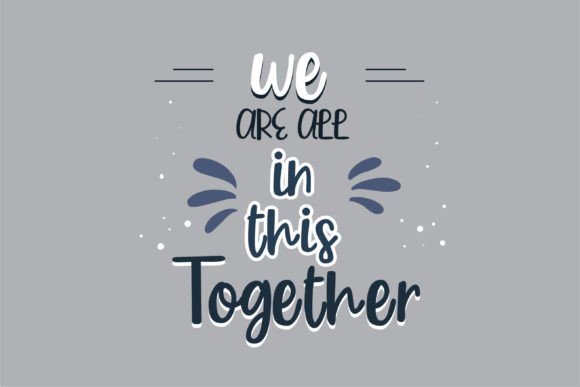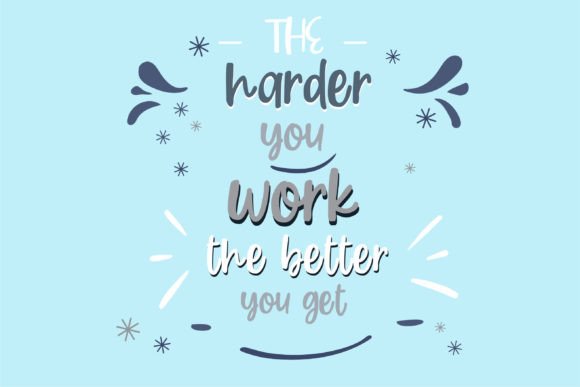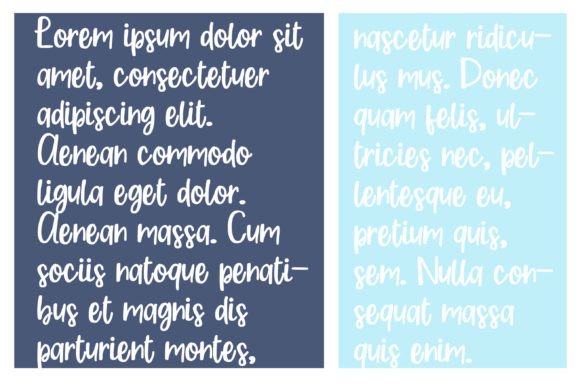
Introduction to Populice Font
Do you remember that moment when a perfect font choice can elevate your entire creative project? For designers, finding the right font can be a game-changer. Whether you’re working on a storybook, designing clothes, or crafting a brand identity, the right font can make all the difference. In this article, we’ll be exploring the wonderful world of Populice Font, a fun and casual cursive script that’s sure to add a touch of personality to your work.
What sets Populice Font apart is its versatility. With a free download available, you can easily integrate it into your design resource library. Plus, its transparent background makes it easy to use on a variety of backgrounds, ensuring your design stands out. Whether you’re a seasoned pro or just starting out, Populice Font is a high-quality addition to any creative project.
Key Features of Populice Font
- High-quality design resource with a transparent background, ideal for creative projects
- Unique characteristics, including a bold and playful style, perfect for adding a pop of personality to your creative project
- Designed to be highly legible, even at small sizes, ensuring your design stands out without compromising on clarity
Honest Review: Populice Font
I recently stumbled upon the Populice Font while searching for high-quality design resources for a creative project. I was impressed by its modern and sleek aesthetic, making it perfect for various design applications.
Here are some things that work well:
- ✨ High-quality design: The font is well-designed, with clear lines and smooth curves.
- ✨ Versatile: It can be used for both digital and print media, including logos, brochures, and website headers.
- ⚠️ Limited character set: The font only includes a basic character set, which may not be suitable for complex or technical writing.
- ⚠️ Not ideal for transparent backgrounds: Due to its solid design, the font may not be the best choice for designs with transparent backgrounds.
Overall, I think the Populice Font is a great addition to any designer’s toolkit, especially for those working on creative projects that require a modern and sleek aesthetic. While it has some limitations, its high quality and versatility make it a valuable resource for designers.
Populice Font is a versatile design resource that can elevate your creative project. With its high-quality design, it’s perfect for a variety of applications.
Use the Populice Font with a transparent background to create a sleek and modern design. Experiment with different font sizes and colors to add visual interest.
Populice Font is perfect for:
- Brand identity and logos
- Marketing materials and flyers
- Web design and landing pages
- Business cards and resumes